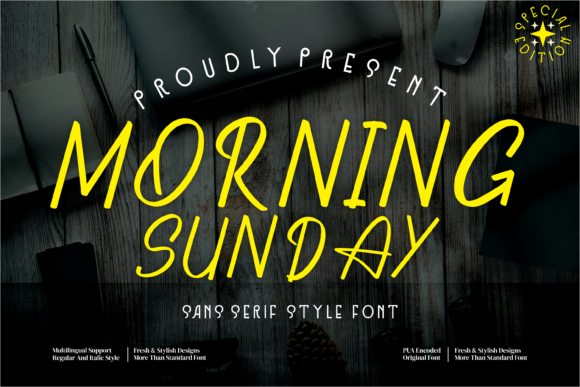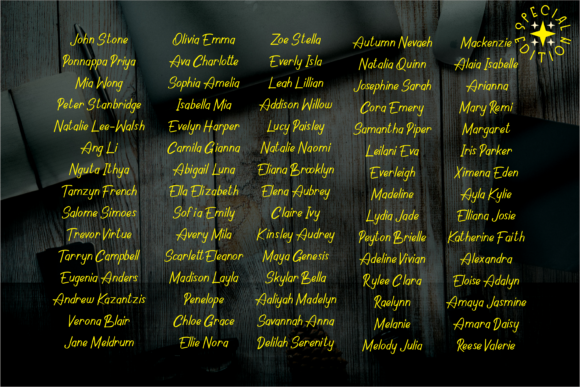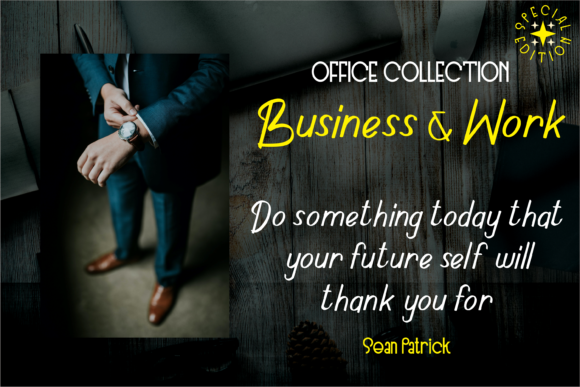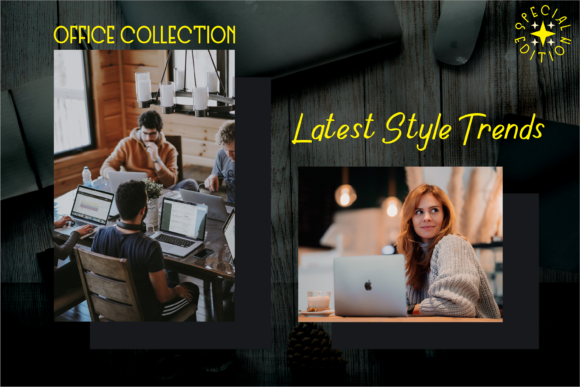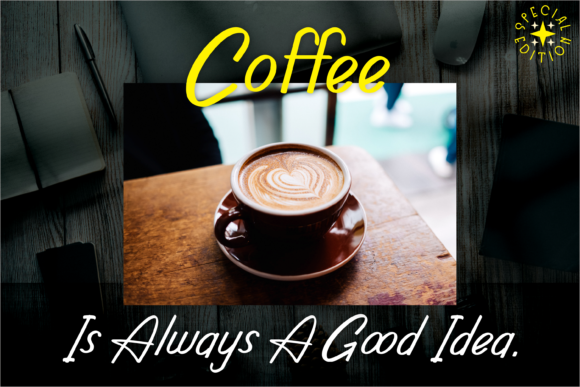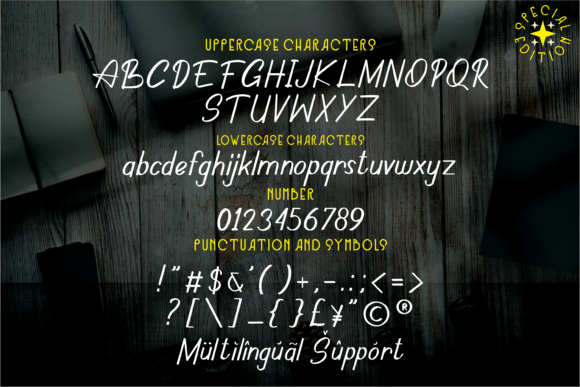
About Morning Sunday Font
Morning Sunday is a clean, simple and natural handwritten font. Simple but with a strong visual effect, this font will instantly make your creation more appealing than any others.